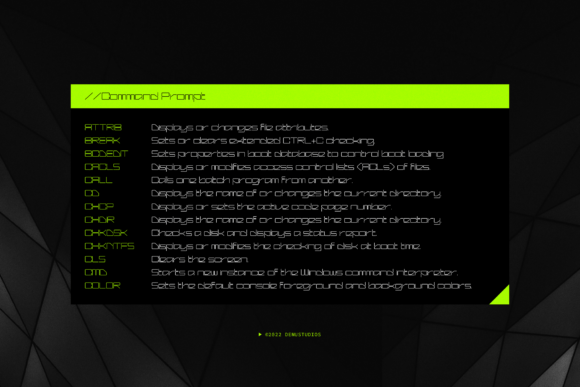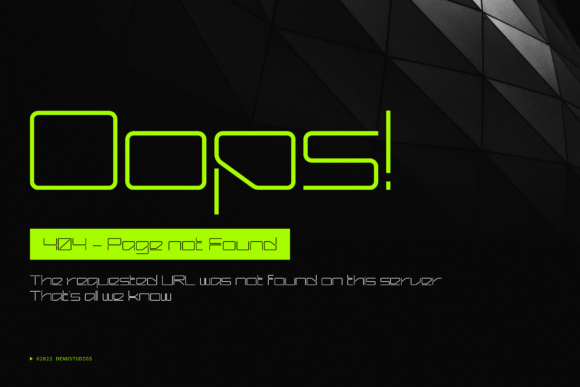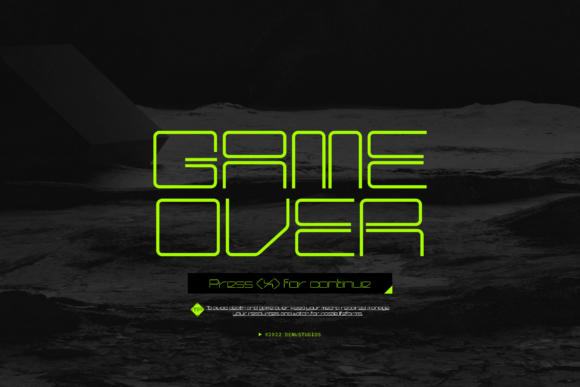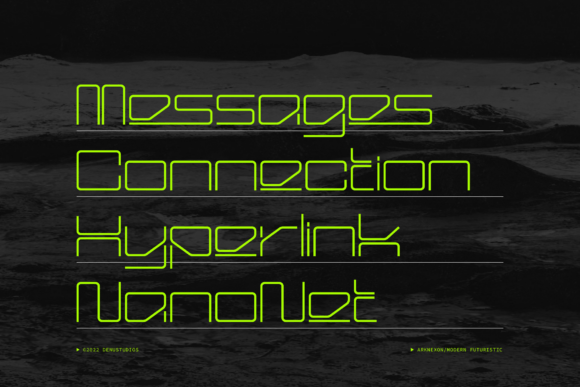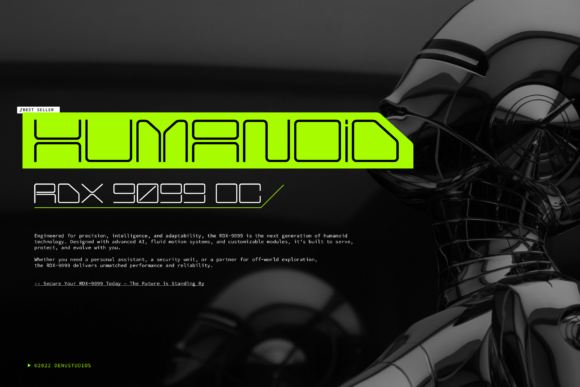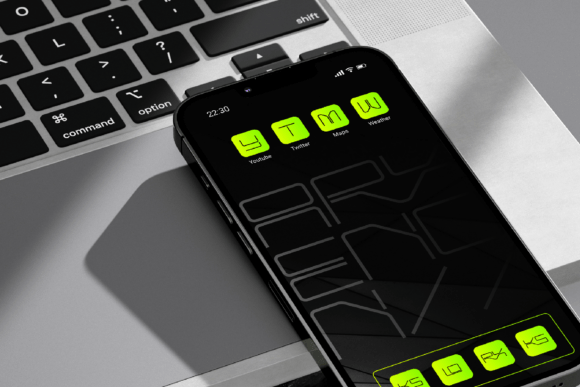
Introducing Arxenon Font: The Ultimate Choice for Futuristic Designs
In the world of typography, fonts play a crucial role in shaping the visual identity of a brand, product, or design. With the ever-evolving landscape of digital design, the demand for modern, sleek, and futuristic fonts has increased exponentially. This is where Arxenon Font comes into play – a cutting-edge, sci-fi inspired typeface that is redefining the world of typography.
What is Arxenon Font?
Arxenon Font is a sleek, futuristic font that boasts clean, geometric lines and a striking sci-fi aesthetic. Its minimalist curves and sharp angles make it an ideal choice for tech branding, game titles, digital interfaces, and modern poster designs. The font’s futuristic look and feel are perfect for designers and crafters who want to add a touch of innovation and style to their work.
Key Features of Arxenon Font
Arxenon Font comes with a range of exciting features that make it a versatile and stylish choice for designers. Some of its key features include:
- Clean and Geometric Lines: Arxenon Font features clean, geometric lines that give it a modern and futuristic look.
- Alternates and Ligatures: The font comes with a range of alternates and ligatures, allowing designers to add a touch of creativity and uniqueness to their work.
- Multilingual Support: Arxenon Font supports multiple languages, making it a great choice for designers who work on international projects.
- Minimalist Curves and Sharp Angles: The font’s minimalist curves and sharp angles give it a striking sci-fi aesthetic that is perfect for tech branding and game titles.
Use Cases for Arxenon Font
Arxenon Font is a versatile typeface that can be used in a variety of design projects. Some of its use cases include:
- Tech Branding: The font’s futuristic look and feel make it perfect for tech branding, including logos, taglines, and marketing materials.
- Game Titles: Arxenon Font is a great choice for game titles, adding a touch of excitement and adventure to any game.
- Digital Interfaces: The font’s clean and geometric lines make it ideal for digital interfaces, including websites, apps, and software.
- Modern Poster Designs: Arxenon Font is perfect for modern poster designs, adding a touch of style and sophistication to any poster.
Why Choose Arxenon Font?
With so many fonts available in the market, why choose Arxenon Font? Here are a few reasons why designers and crafters should consider Arxenon Font for their next project:
- Unique and Futuristic Aesthetic: Arxenon Font offers a unique and futuristic aesthetic that is hard to find in other fonts.
- Versatility: The font’s versatility makes it suitable for a wide range of design projects, from tech branding to game titles.
- High-Quality Design: Arxenon Font is designed with high-quality and attention to detail, ensuring that it looks great in any design project.
In conclusion, Arxenon Font is a sleek, futuristic font that is perfect for designers and crafters who want to add a touch of innovation and style to their work. With its clean and geometric lines, alternates and ligatures, and multilingual support, Arxenon Font is built for versatility and style. Whether you’re working on a tech branding project, game title, digital interface, or modern poster design, Arxenon Font is the ultimate choice for futuristic designs.